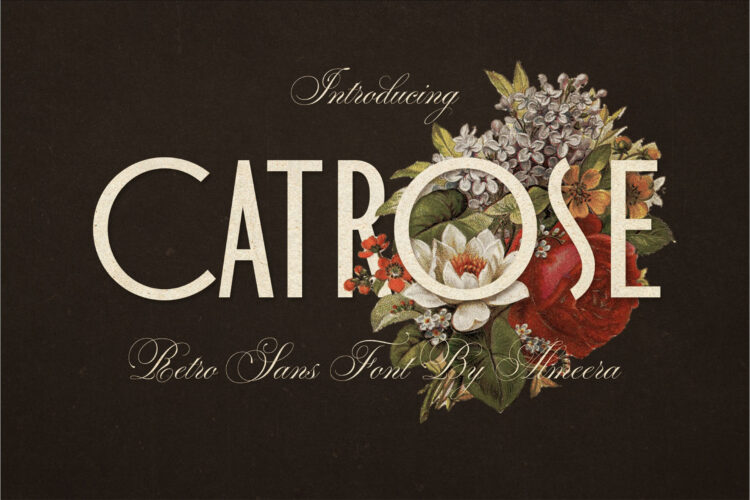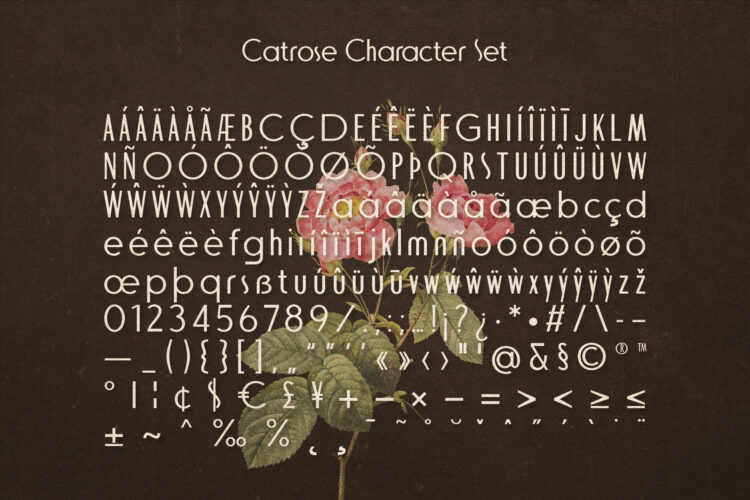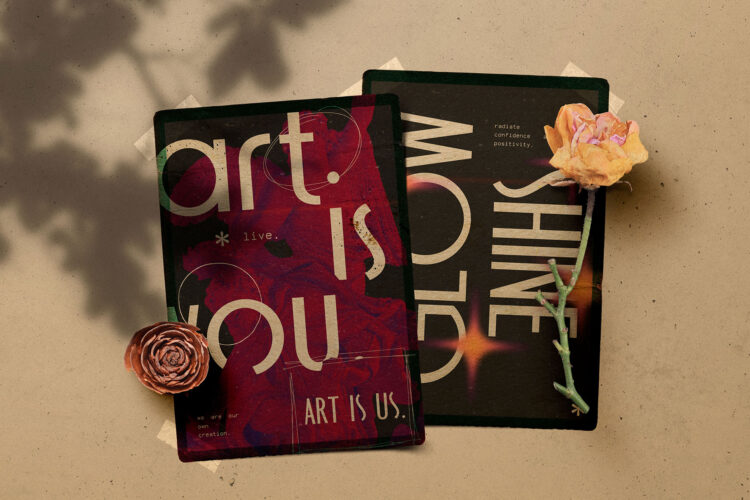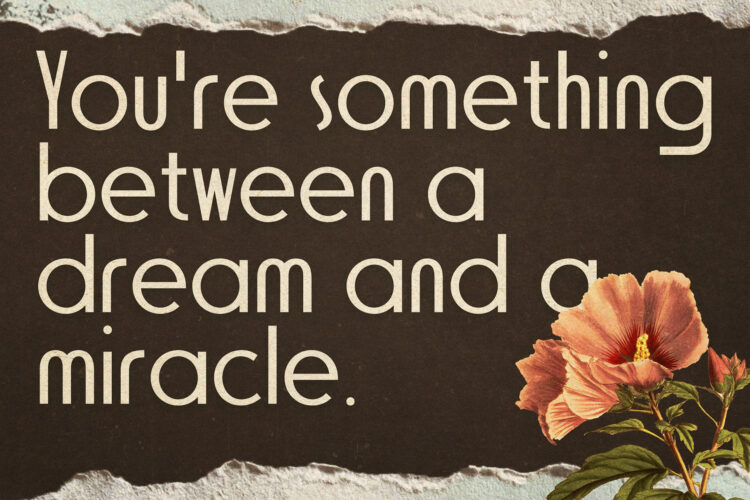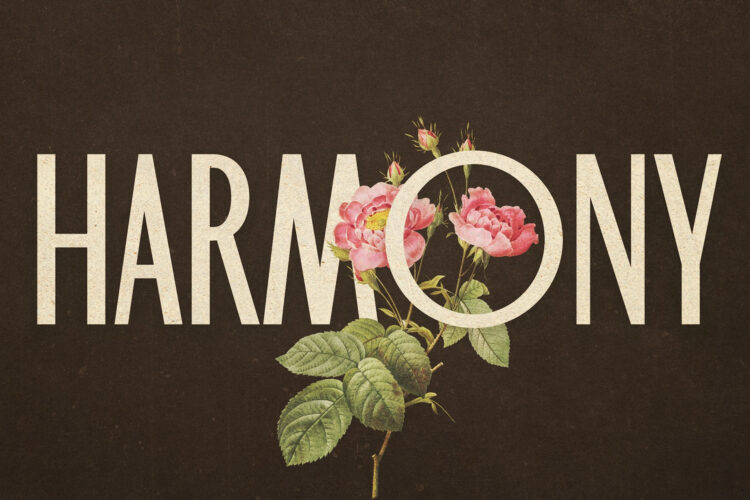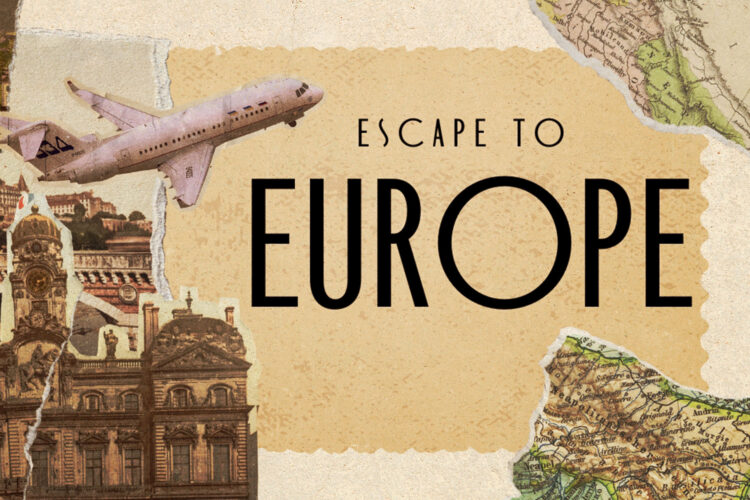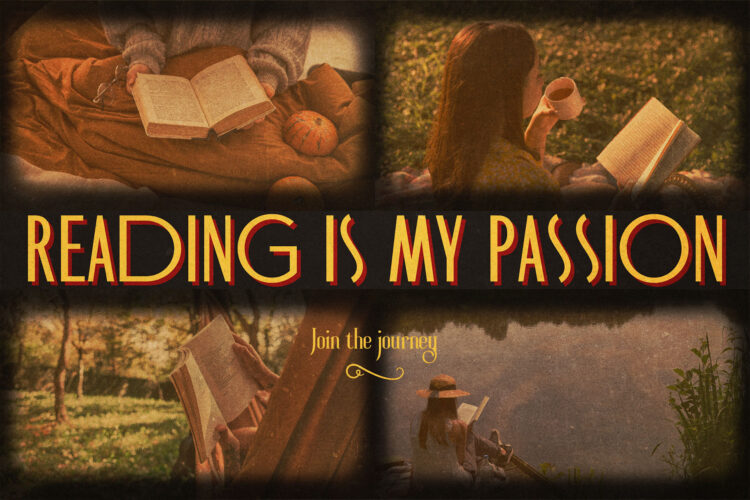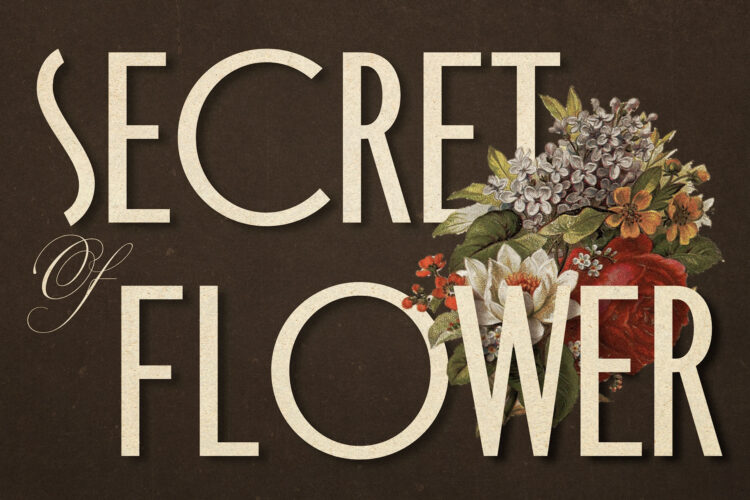
Introducing our new Catrose, Retro Condensed sans serif font with elegant style this is perfect for branding, logos, invitation, magazines, product packaging and more.
Catrose | Retro Sans